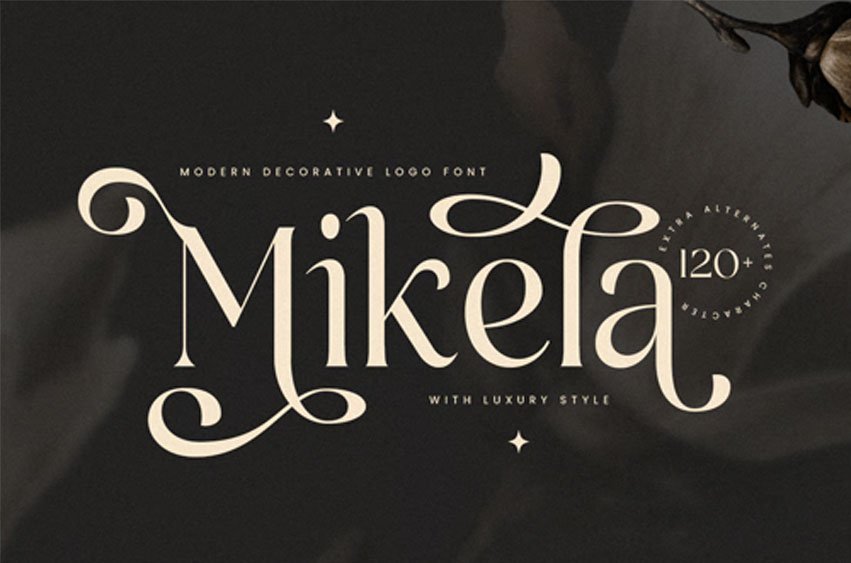
Mikela Curvy Font is the epitome of luxury and cinematic elegance in a serif font. Perfectly crafted for sophisticated and high-end designs, Mikela brings a touch of class and refinement to any project.
- Luxury Design: A luxurious serif style ideal for upscale and sophisticated projects.
- Cinematic Appeal: Perfect for film titles, movie posters, and dramatic visual content.
- Versatile Usage: Suitable for branding, editorial layouts, elegant invitations, and more.
- Inspirational Previews: Includes sample designs to inspire your creative projects.
Elevate your designs with Mikela, the luxury serif font that exudes sophistication and style. Whether for high-end branding, cinematic projects, or elegant typography, Bailey adds a timeless and refined touch to your work. Make a statement with Mikela and let your designs shine with unparalleled elegance.